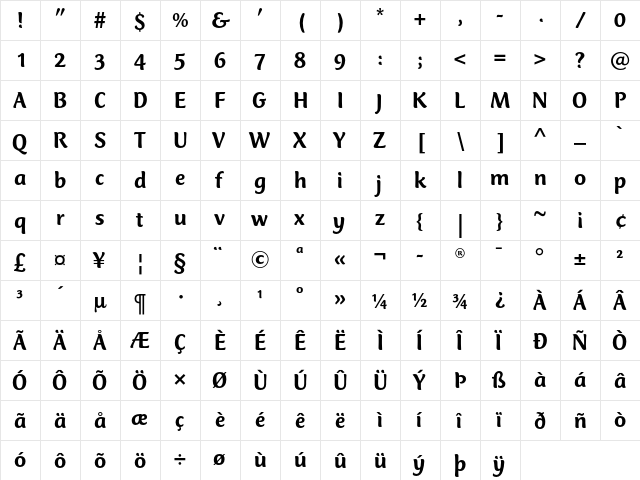
CT Mercurius Medium
Design Context for CT Mercurius Typeface
CT Mercurius takes a measured approach to typography — its balanced proportions and neutral character make it a reliable workhorse for both digital and print work.